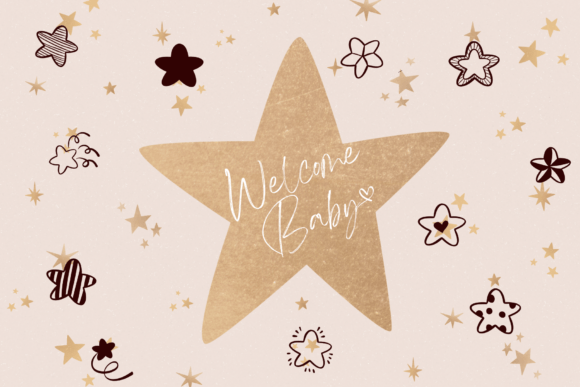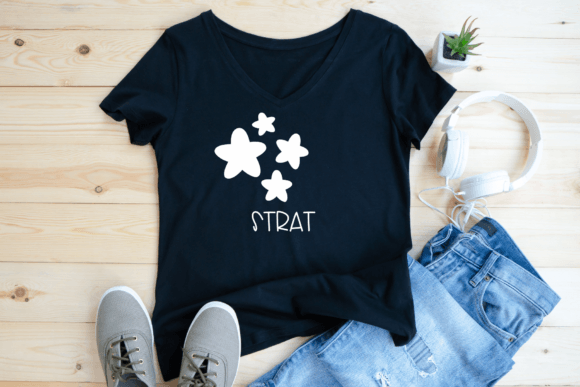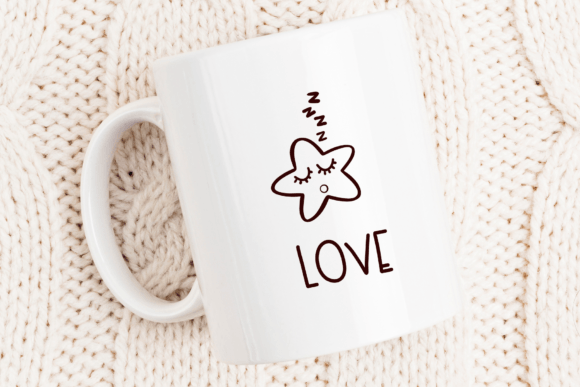
Introduction to Doodle Star Font
Have you ever been working on a creative project, pouring your heart and soul into it, only to feel like something’s missing that extra special touch? That’s where the magic of the Doodle Star Font comes in. This delightful dingbat font is a treasure trove of cute star designs, perfect for adding a playful and whimsical feel to your designs.
As a designer, you’re always on the lookout for high-quality design resources that can help take your projects to the next level. And that’s exactly what the Doodle Star Font offers – a versatile and customizable font that can be used on a transparent background, making it a fantastic addition to any creative project.
Key Features of Doodle Star Font
- Unique Doodle Star Font style with a whimsical, hand-drawn feel, perfect for creative projects.
- Transparent background, allowing for seamless integration with various design elements.
- Perfect for designers working on children’s books, educational materials, or any other creative project requiring a playful touch.
Honest Review: Doodle Star Font
- High-quality design: The font has a beautiful, whimsical feel to it, making it perfect for creative projects that need a touch of magic.
- Transparent background: This allows for easy integration into any design, whether it’s a website, social media graphic, or print material.
- Great for hand-drawn look: The Doodle Star Font gives off a lovely hand-drawn feel, perfect for designers who want to add a personal touch to their work.
- Not ideal for formal projects: While the font is great for creative projects, it may not be the best choice for more formal or professional designs.
- May require adjustments: Depending on the project, you may need to adjust the font size or spacing to get the desired look.
Overall, I’m impressed with the Doodle Star Font. It’s a fantastic free download that can add a unique touch to any design project. Just keep in mind its limitations, and you’ll be all set to create some amazing designs.
Tips for Getting the Most Out of Doodle Star Font
To get the most out of the Doodle Star Font, use it in conjunction with other design elements such as graphics, images, and shapes. Experiment with different font sizes and styles to create a unique look.